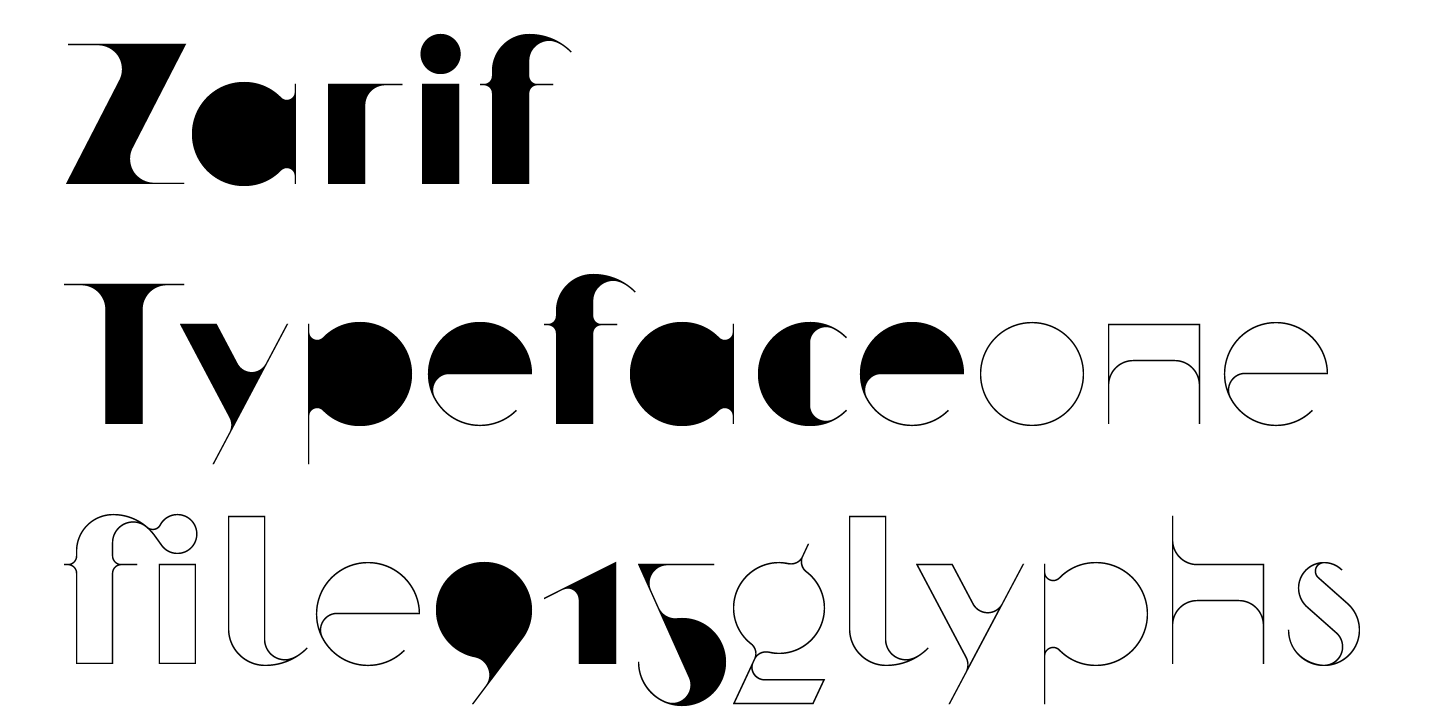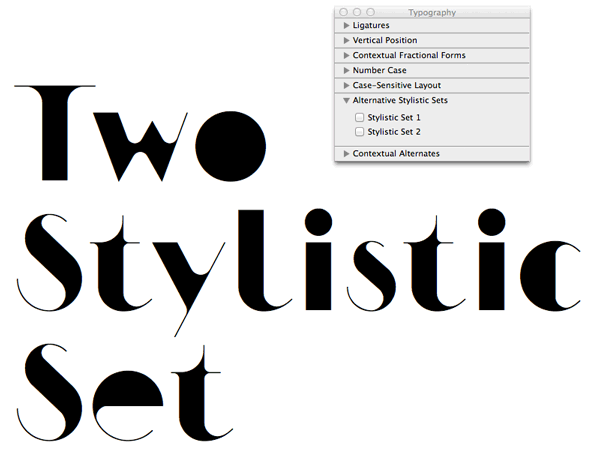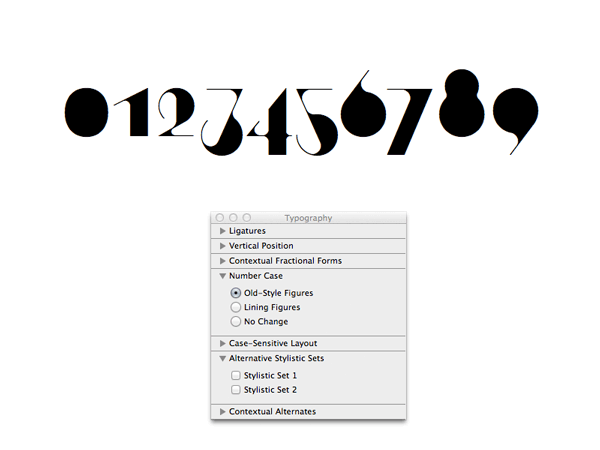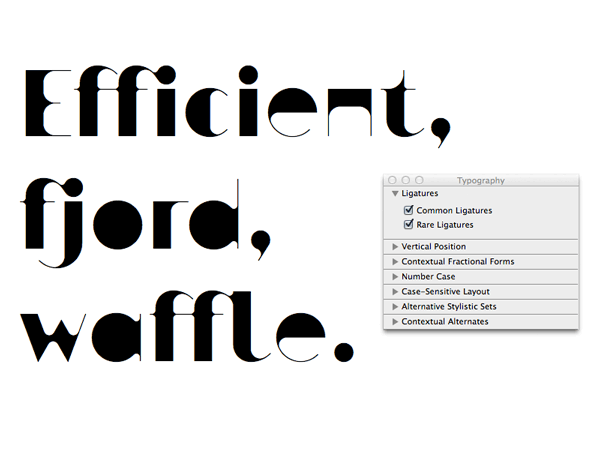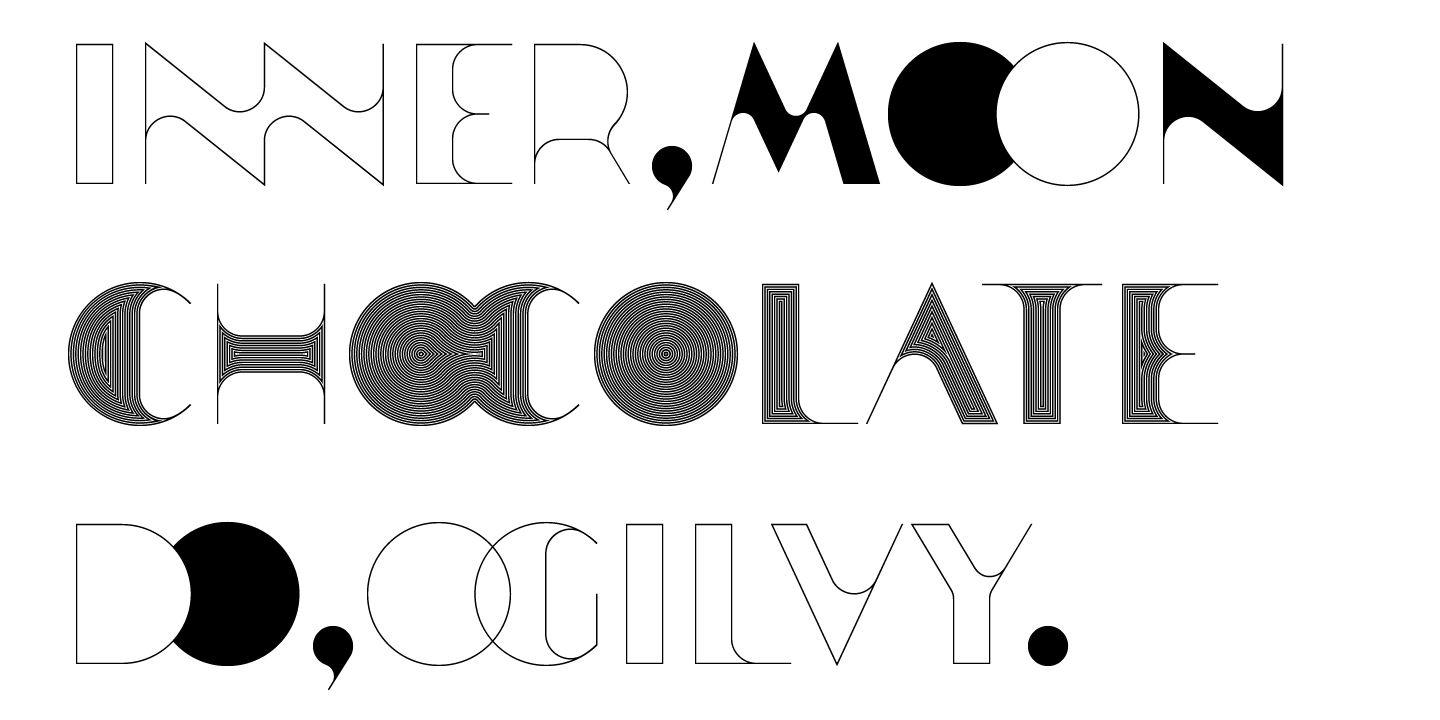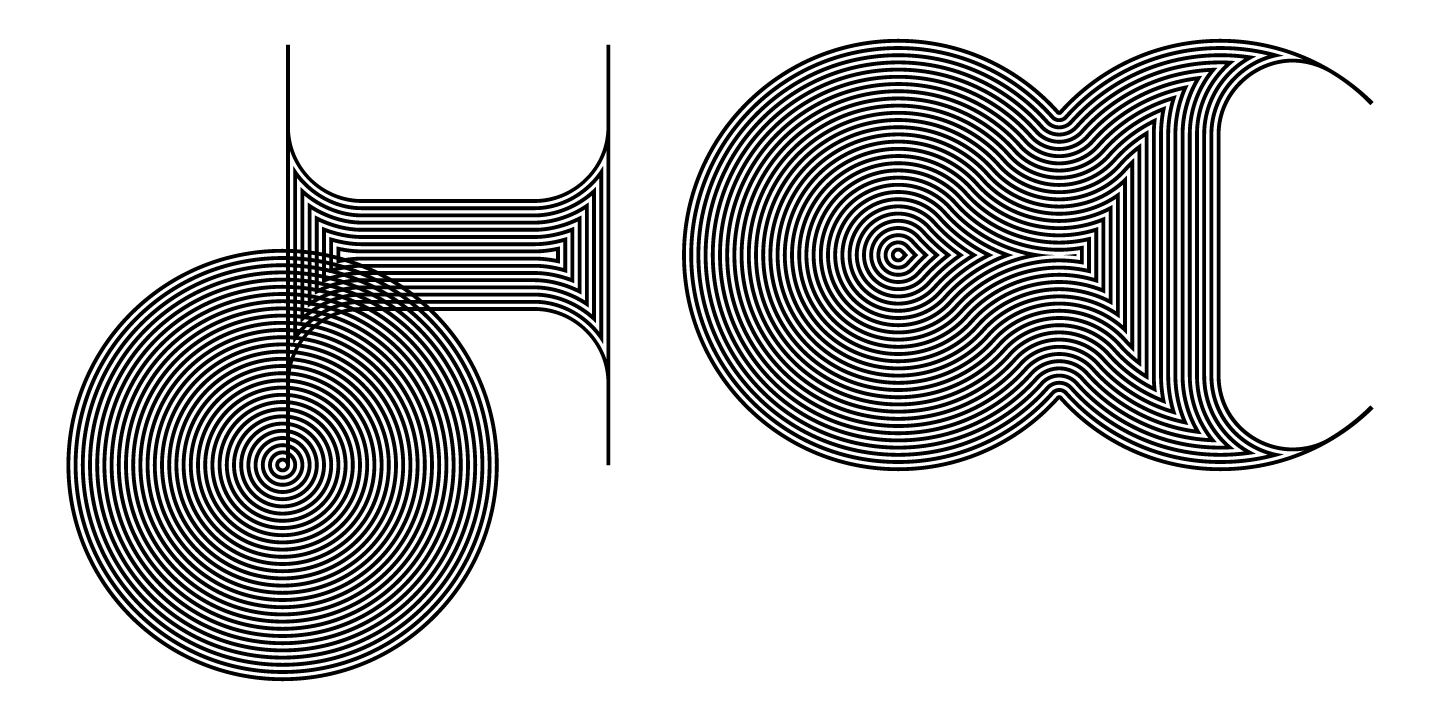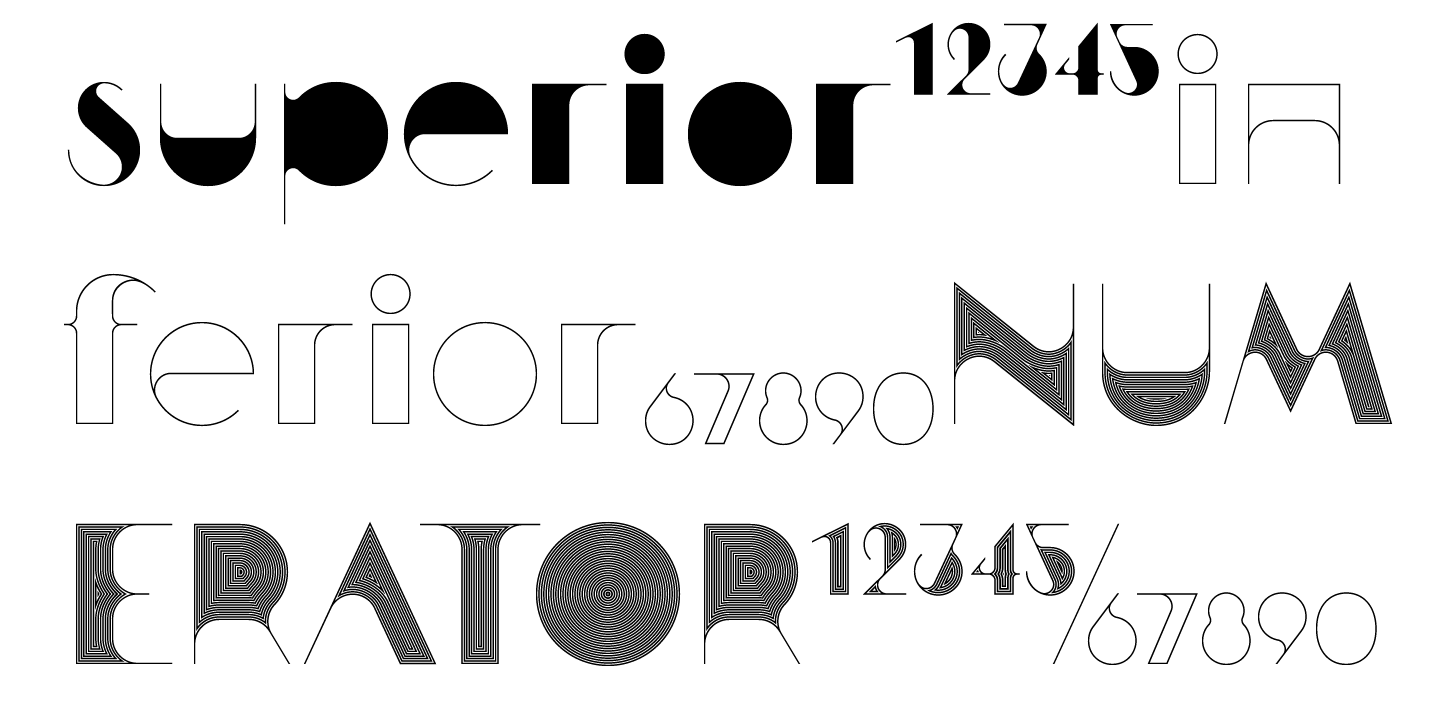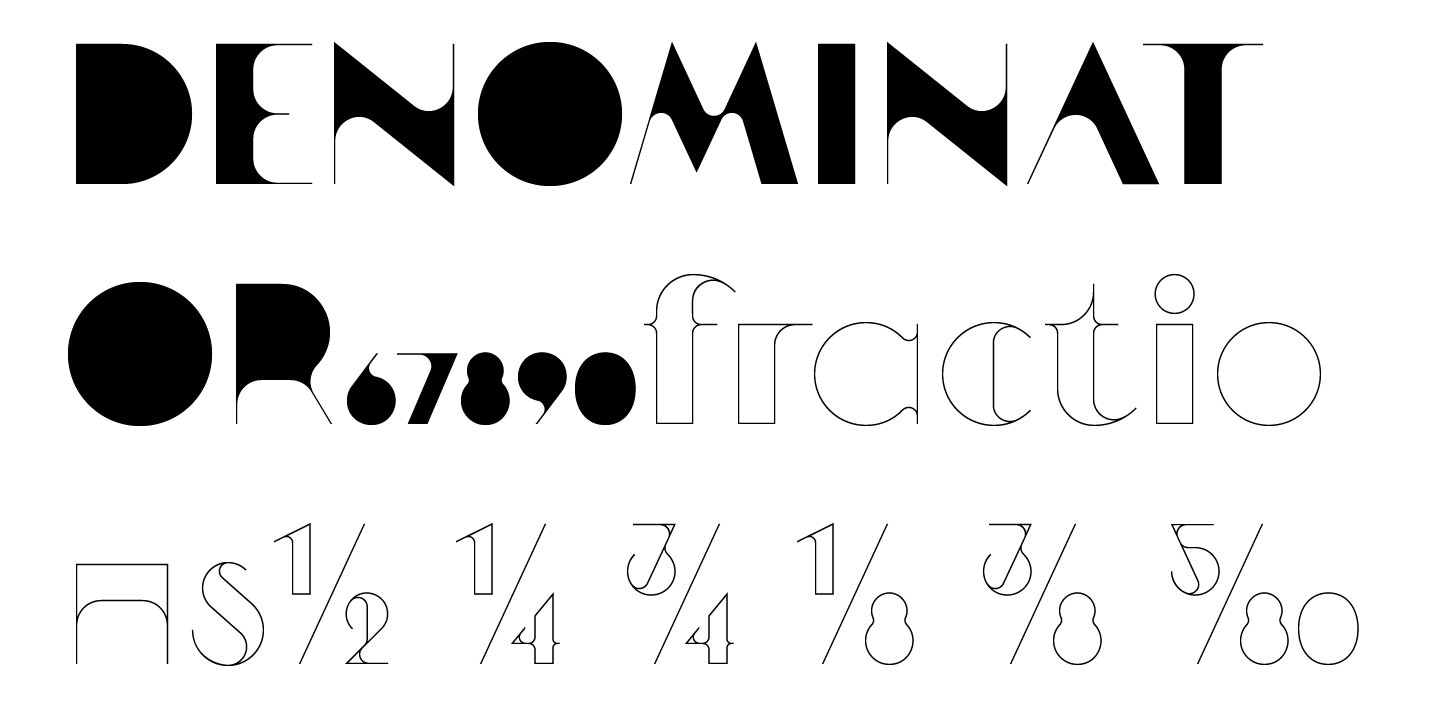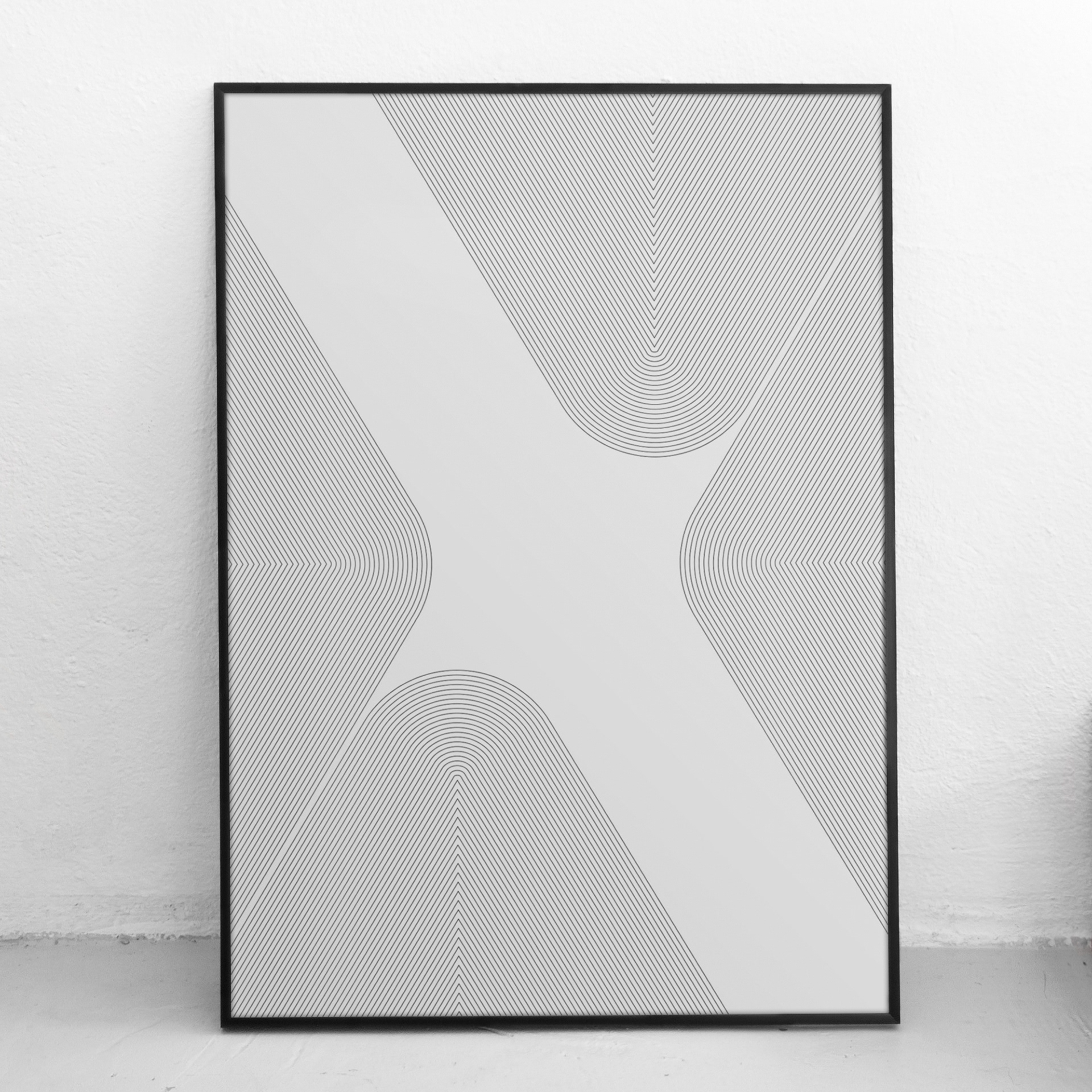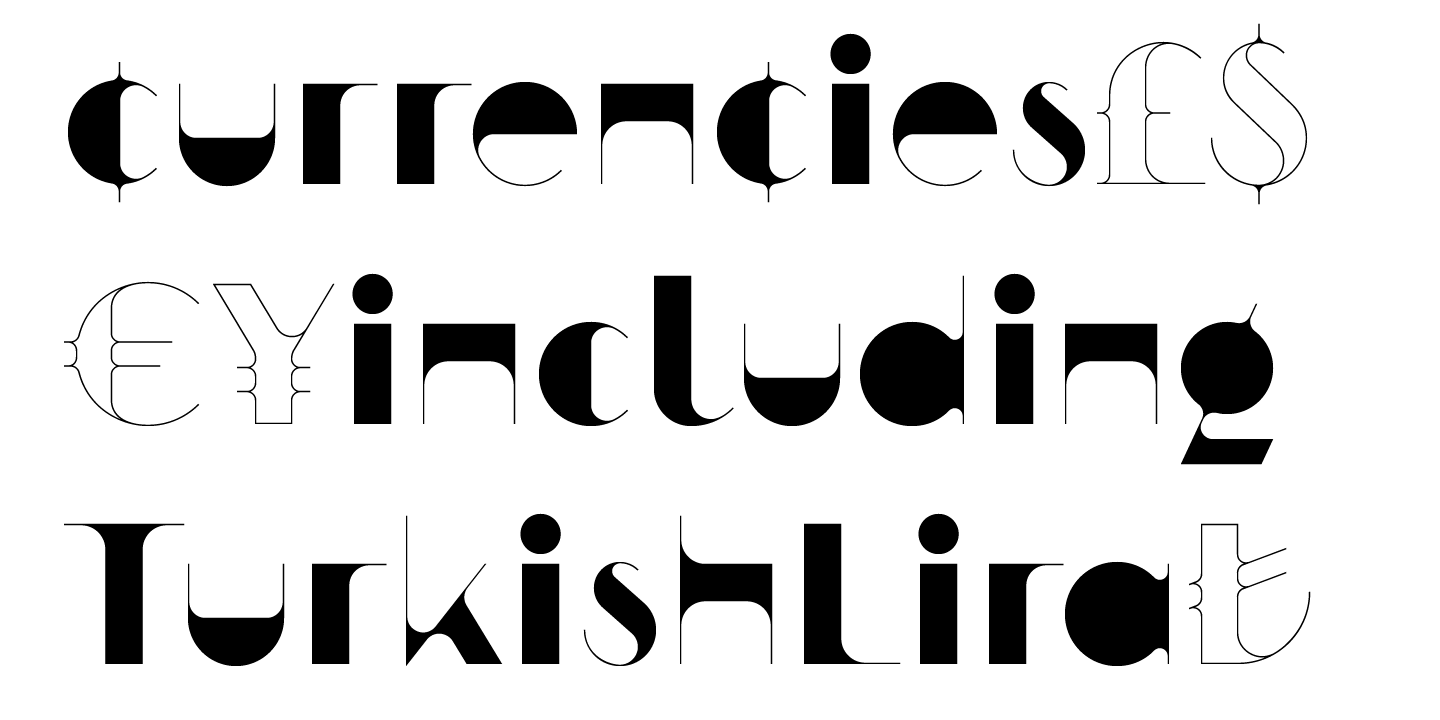
Zarif is a versatile display typeface that is perfect for brands headlines, magazines and posters. It’s just one file which contains 3 different style & OT features that accessible in OT–savvy applications.